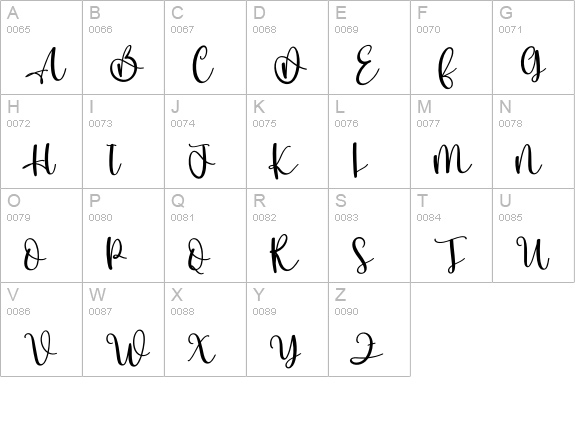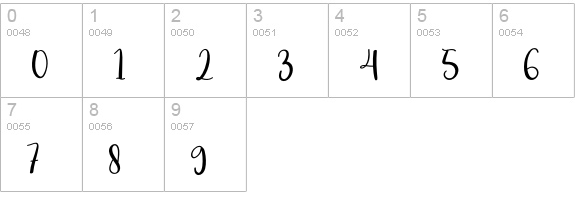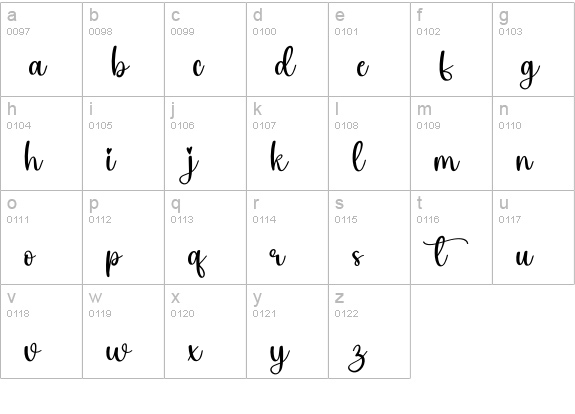
Buttercake font is a charming and whimsical typeface that exudes warmth and playfulness. Its soft curves and smooth lines give it a friendly and inviting appearance, making it perfect for a wide range of design projects. Whether you're creating invitations, posters, or branding materials, Buttercake font will add a touch of sweetness and personality to your designs.